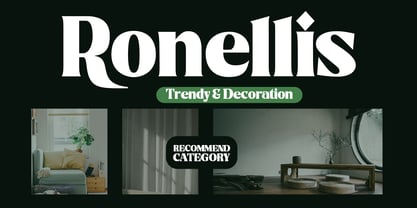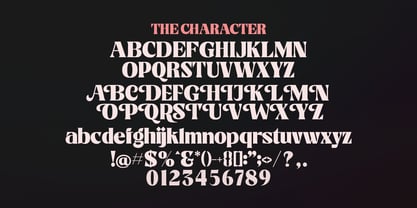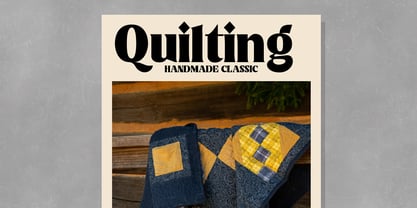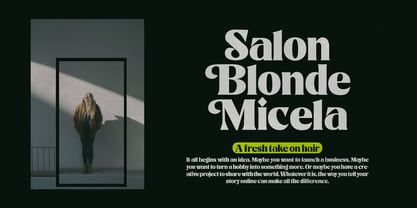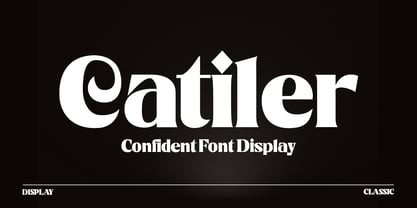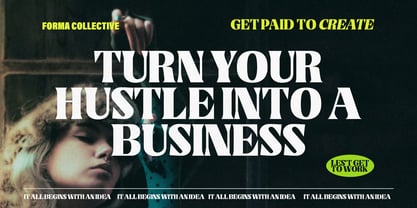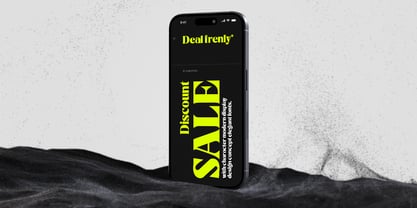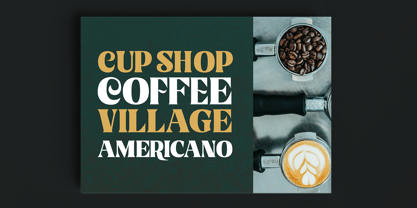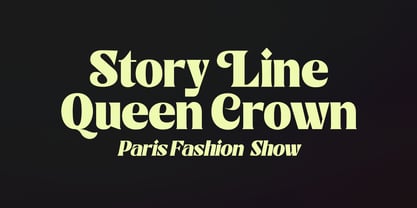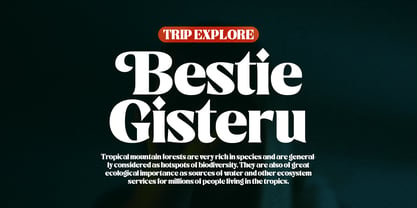
Catiler
The Catiler Font Family was designed by khaidir and published by Gatype. Catiler contains 94 styles and family package options. More about this family
Catiler is an elegant and highly dynamic modern display font for editorial titles. This serif and italic font style making it easy to use in a variety of projects. It also comes with symbols and multilingual support. This bold, bold, and sleek font style is suitable for editorials, web, posters, t-shirts, magazine covers, and more. Includes: Capital Letters, Numbers, Punctuation & Symbols, Alternate. Catiler exudes character yet remains functional thanks to its restrained modern style and contemporary construction.